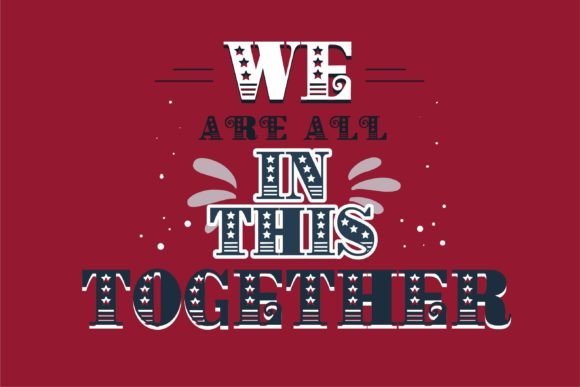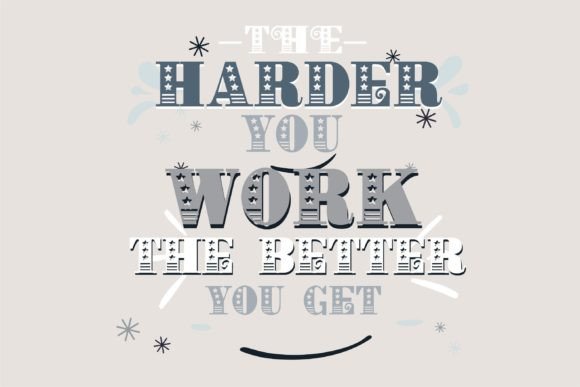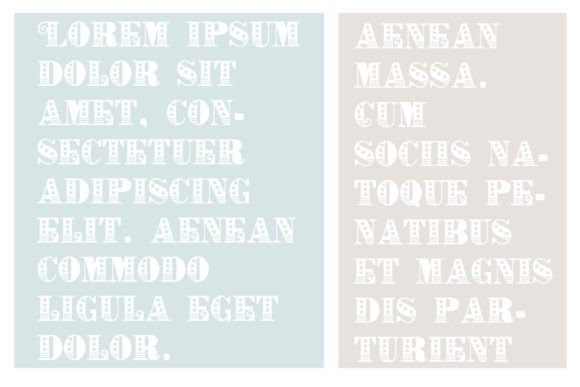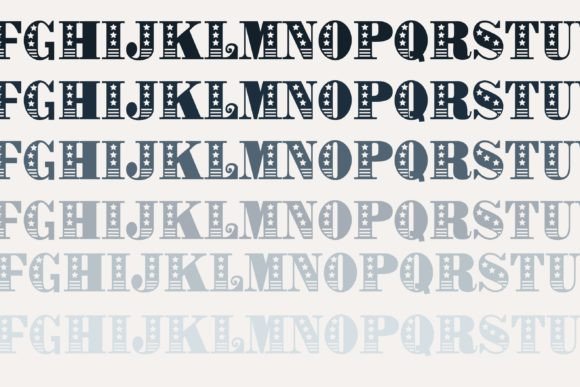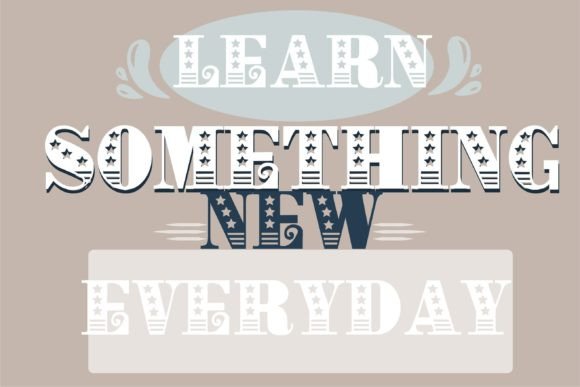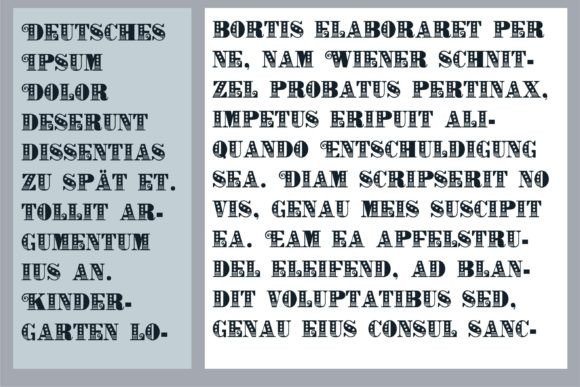
Introducing Charleston Allegiance Font: The Perfect Patriotic Display Font for Your American-Themed Projects
Are you looking for a font that screams patriotism and American pride? Look no further than the Charleston Allegiance Font! This unique display font is designed to add a touch of elegance and sophistication to your American-themed projects, and we’re excited to share its features and benefits with you.
What is Charleston Allegiance Font?
Charleston Allegiance Font is a specially crafted display font that embodies the spirit of American patriotism. Its distinctive design and bold typography make it perfect for headlines, titles, and other display purposes. Whether you’re working on a project for Independence Day, Memorial Day, or just want to add some American flair to your designs, this font is sure to impress.
Key Features of Charleston Allegiance Font
- Unique and Patriotic Design: Charleston Allegiance Font boasts a one-of-a-kind design that exudes American pride and patriotism.
- Display Font: This font is specifically designed for display purposes, making it perfect for headlines, titles, and other attention-grabbing elements.
- Elegant and Sophisticated: The font’s elegant and sophisticated design ensures that your projects look refined and professional.
- Easy to Read: Despite its bold and decorative nature, Charleston Allegiance Font remains easy to read, even at smaller sizes.
Why Choose Charleston Allegiance Font?
So, why should you choose Charleston Allegiance Font for your American-themed projects? Here are just a few compelling reasons:
- Adds Instant Patriotism: With Charleston Allegiance Font, you can instantly add a touch of American patriotism to your projects, making them perfect for holidays and special events.
- Versatile: This font is versatile and can be used in a wide range of projects, from digital designs to print materials.
- High-Quality Design: Charleston Allegiance Font is designed to the highest standards, ensuring that your projects look professional and polished.
Tips and Inspiration for Designers and Crafters
Here are some tips and inspiration for designers and crafters looking to get the most out of Charleston Allegiance Font:
- Pair with Other Fonts: Experiment with pairing Charleston Allegiance Font with other fonts to create unique and interesting combinations.
- Use on Patriotic Projects: Use the font on patriotic projects, such as Independence Day or Memorial Day designs.
- Add Graphics and Images: Add graphics and images to your projects to complement the font and create visually appealing designs.
- Experiment with Colors: Experiment with different colors to find the perfect combination that complements the font and your project.